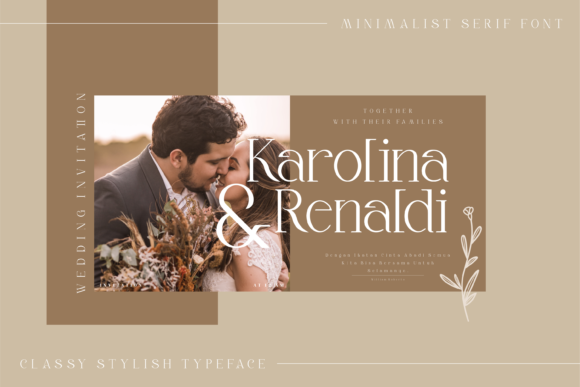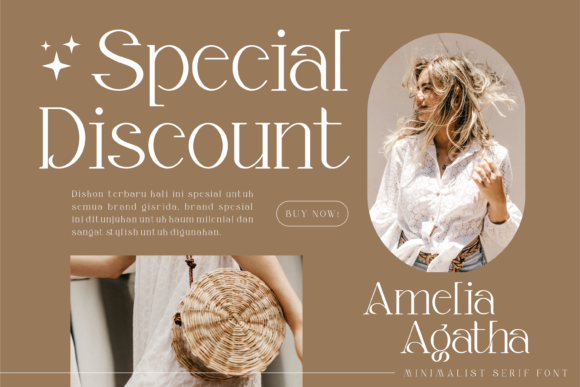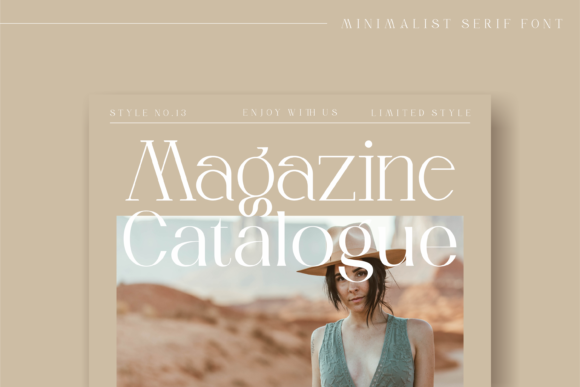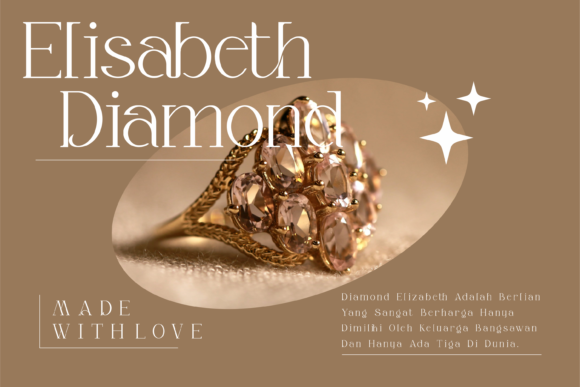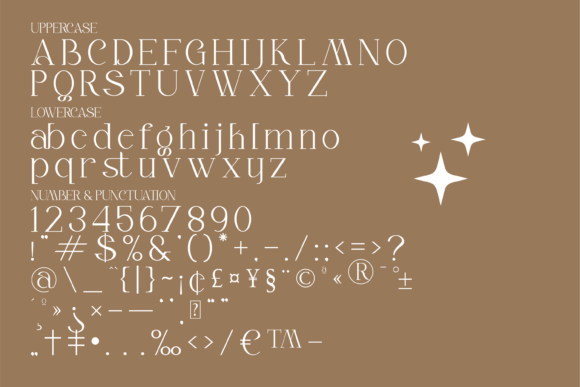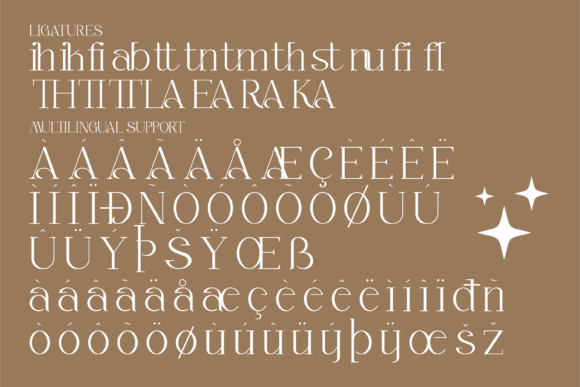
Introducing Alika Font: The Perfect Choice for Crafty Designs
Are you a designer or crafter looking for a unique and versatile font to elevate your creative projects? Look no further than Alika Font, a thin lettered and light serif font that’s sure to capture your imagination. With its original look and wide range of applications, Alika Font is the perfect choice for anyone seeking to add a touch of elegance and sophistication to their designs.
What is Alika Font?
Alika Font is a carefully crafted font that boasts a distinctive thin lettered and light serif style. This font is designed to be both visually striking and highly legible, making it perfect for use in a variety of creative projects. Whether you’re working on a letterhead, title, or stationery, Alika Font is sure to make a lasting impression.
Key Features of Alika Font
- Thin Lettered: Alika Font features thin letters that are both elegant and refined, making it perfect for designs where you want to convey a sense of sophistication and luxury.
- Light Serif: The light serif style of Alika Font adds a touch of classic elegance to your designs, making it perfect for use in traditional and modern designs alike.
- Highly Legible: Despite its thin lettered and light serif style, Alika Font is highly legible, even at small sizes, making it perfect for use in body text and captions.
- Versatile: Alika Font is incredibly versatile, and can be used in a wide range of creative projects, from letterheads and titles to stationery and more.
Applications of Alika Font
Alika Font is perfect for a wide range of creative projects, including:
- Letterheads: Add a touch of elegance and sophistication to your letterheads with Alika Font.
- Titles: Use Alika Font to create stunning titles for your blog posts, articles, and other written content.
- Stationery: Elevate your stationery designs with Alika Font, perfect for use in wedding invitations, greeting cards, and more.
- Branding: Use Alika Font to create a consistent brand identity across all your marketing materials.
Why Choose Alika Font?
So why choose Alika Font over other fonts available? Here are just a few reasons:
- Unique Style: Alika Font boasts a unique and original style that’s sure to set your designs apart from the crowd.
- Elegant and Refined: Alika Font is both elegant and refined, making it perfect for designs where you want to convey a sense of sophistication and luxury.
- Highly Versatile: Alika Font is incredibly versatile, and can be used in a wide range of creative projects.
Tips for Using Alika Font
Here are a few tips for getting the most out of Alika Font:
- Use it sparingly: Alika Font is a statement font, so use it sparingly to add emphasis and create visual interest.
- Pair it with other fonts: Alika Font pairs well with a wide range of other fonts, so don’t be afraid to experiment and find the perfect combination for your design.
- Experiment with colors: Alika Font looks great in a wide range of colors, so don’t be afraid to experiment and find the perfect hue for your design.
In conclusion, Alika Font is a versatile and elegant font that’s perfect for designers and crafters looking to add a touch of sophistication and luxury to their creative projects. With its unique style, highly legible letters, and wide range of applications, Alika Font is sure to become a go-to font in your design arsenal. So why wait? Download Alika Font today and start elevating your designs to the next level!